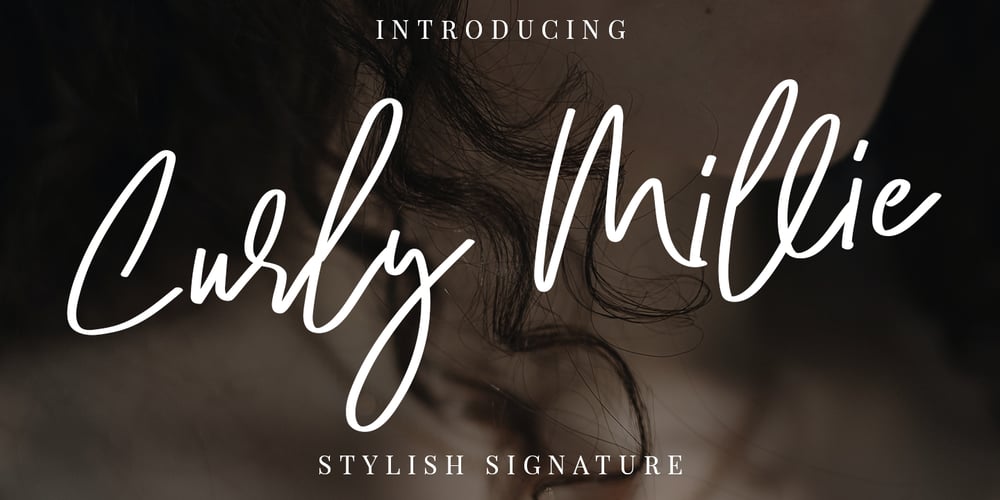
Curly Millie Font Family was designed by Hamzah Muhamad Ihsan and published by Typesthetic Studio. Curly Millie contains 1 styles and family package options. Curly Millie is modern & fresh signature style script font. This font looks natural, classy and perfect for any awesome projects that needs a handwriting taste.With exaggerated strokes and a bouncy baseline, Curly Millie has an unmistakable charm; perfect for logos, wedding stationery, cards, gift designs, photography, watermark, product packaging and handwritten quotes.